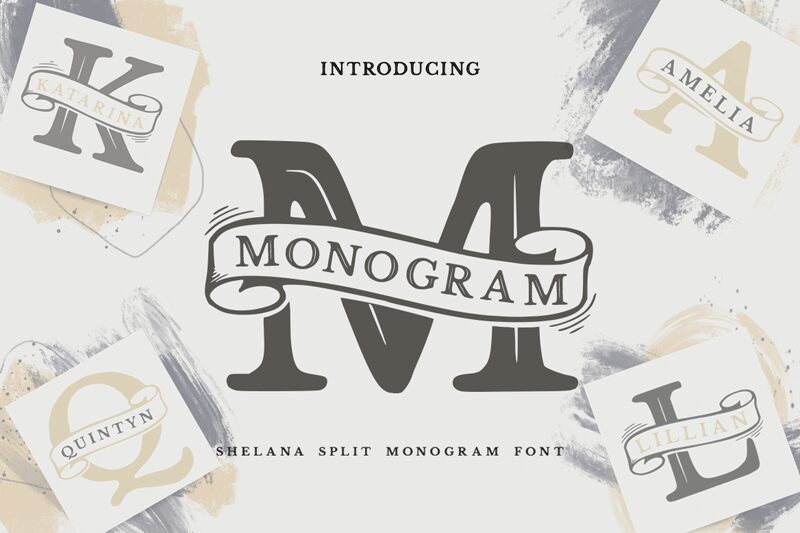
Shelana Monogram Split font by Rochart Studio is a free font merging traditional elegance with a modern twist. Its ornate characters imbue a sophisticated and artistic touch, perfect for classic and decorative designs. This serif font features vintage-inspired ornamental elements that enhance its formal yet stylish aesthetic, providing a unique flair to any creative project.
The font's monogram style makes it especially suitable for boutique branding, invitation cards, wedding stationery, or logo designs. It can also elevate decorative book covers, artistic posters, labels, greeting cards, and high-end product packaging. Any personal project needing a touch of class and elegance will benefit from incorporating Shelana Monogram Split.